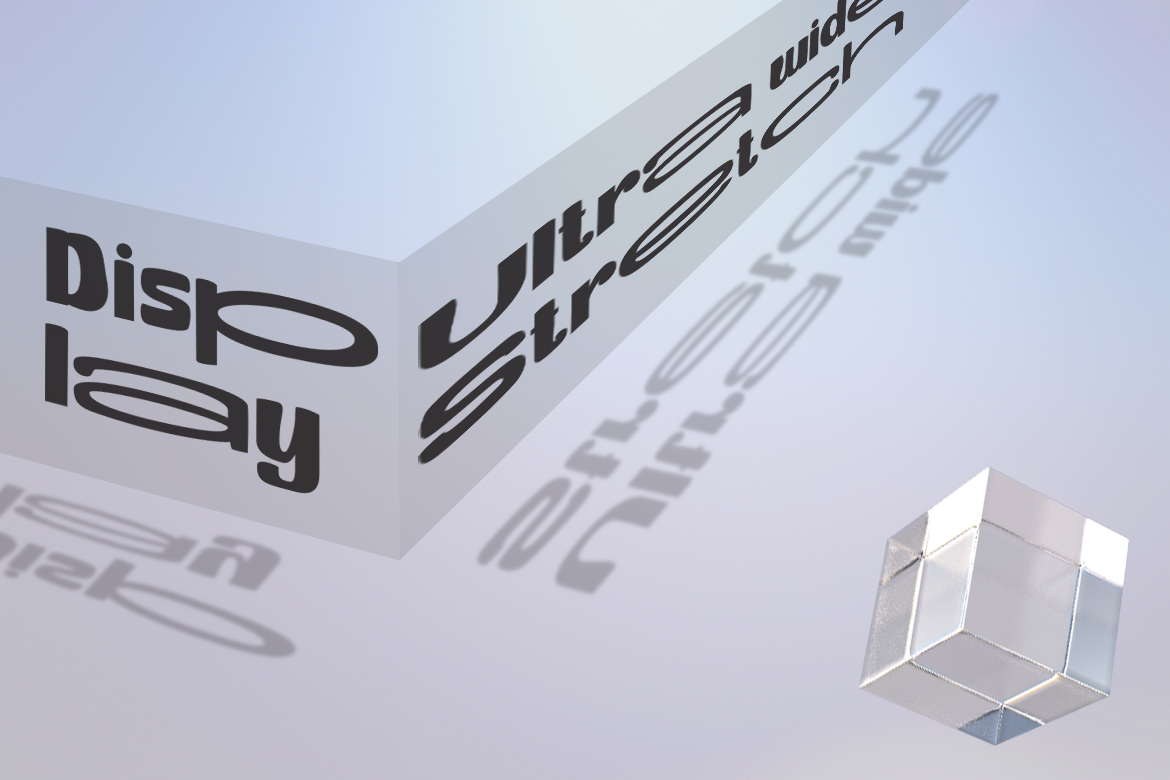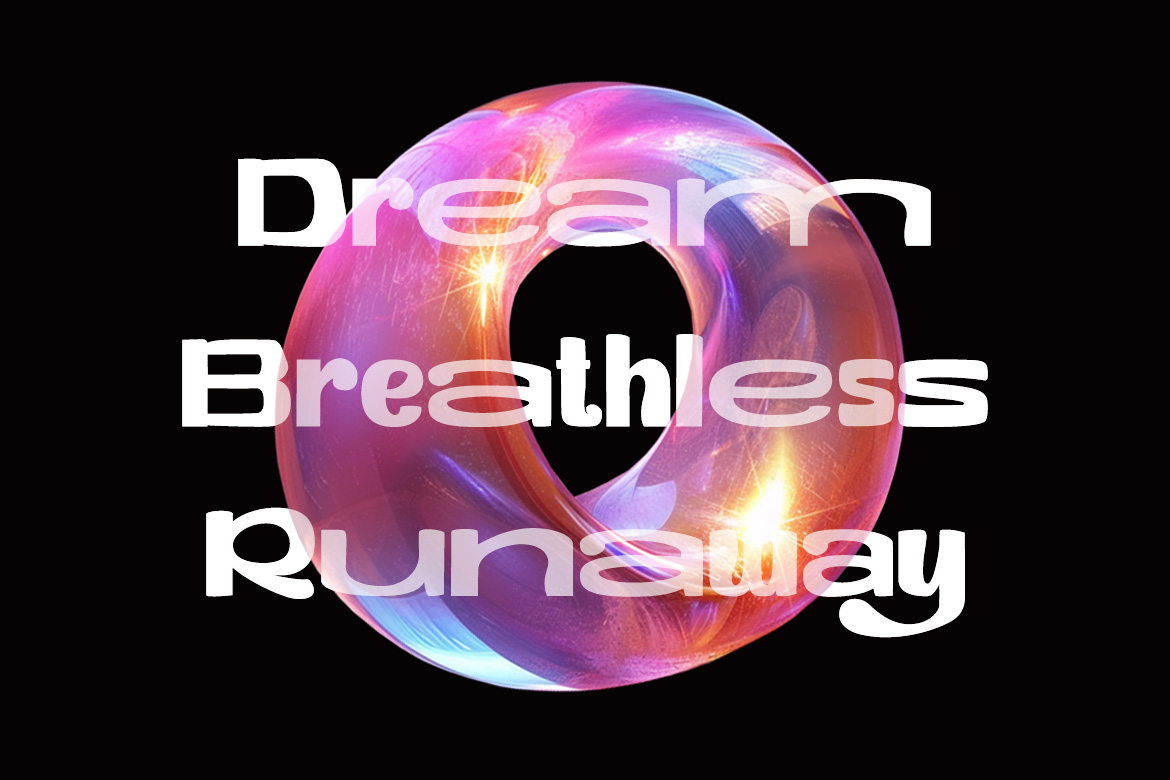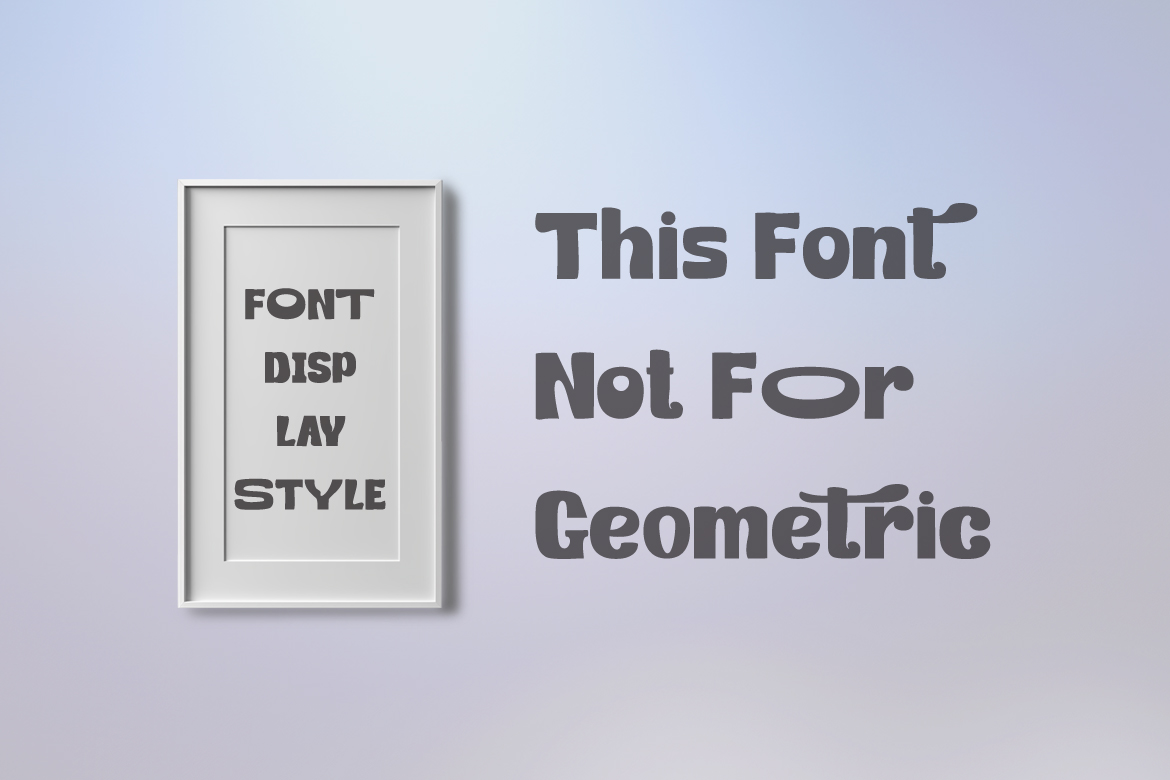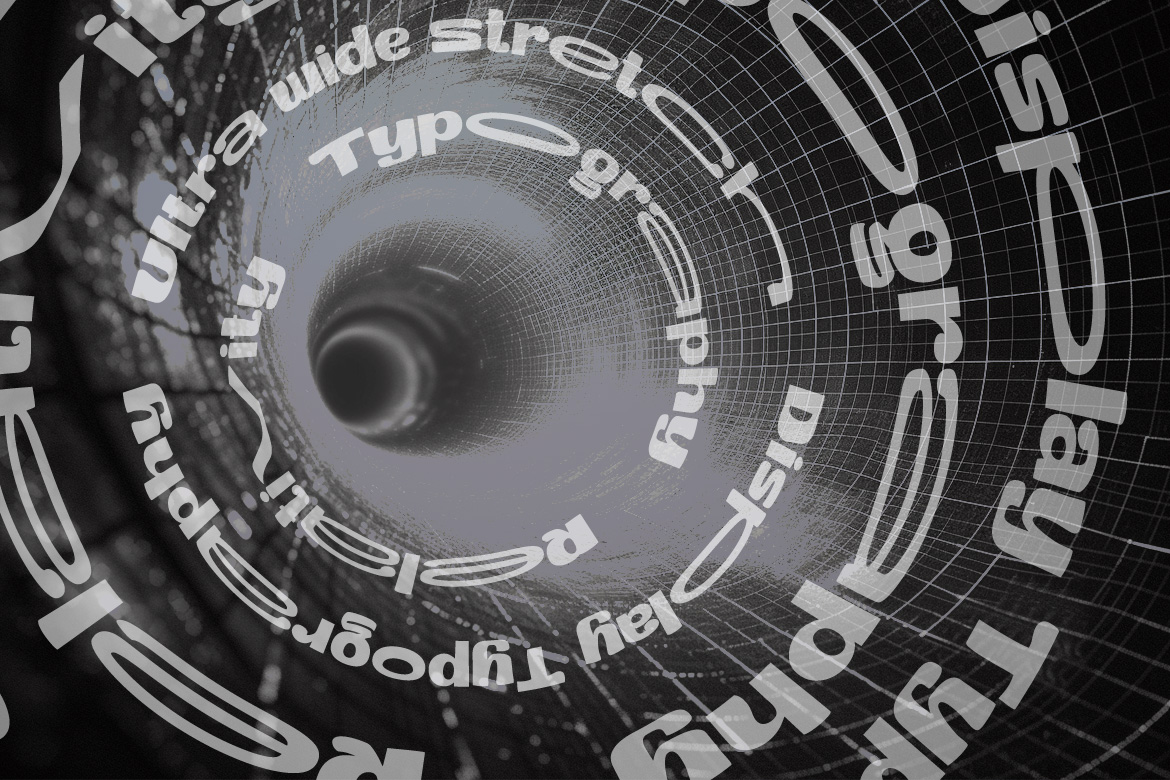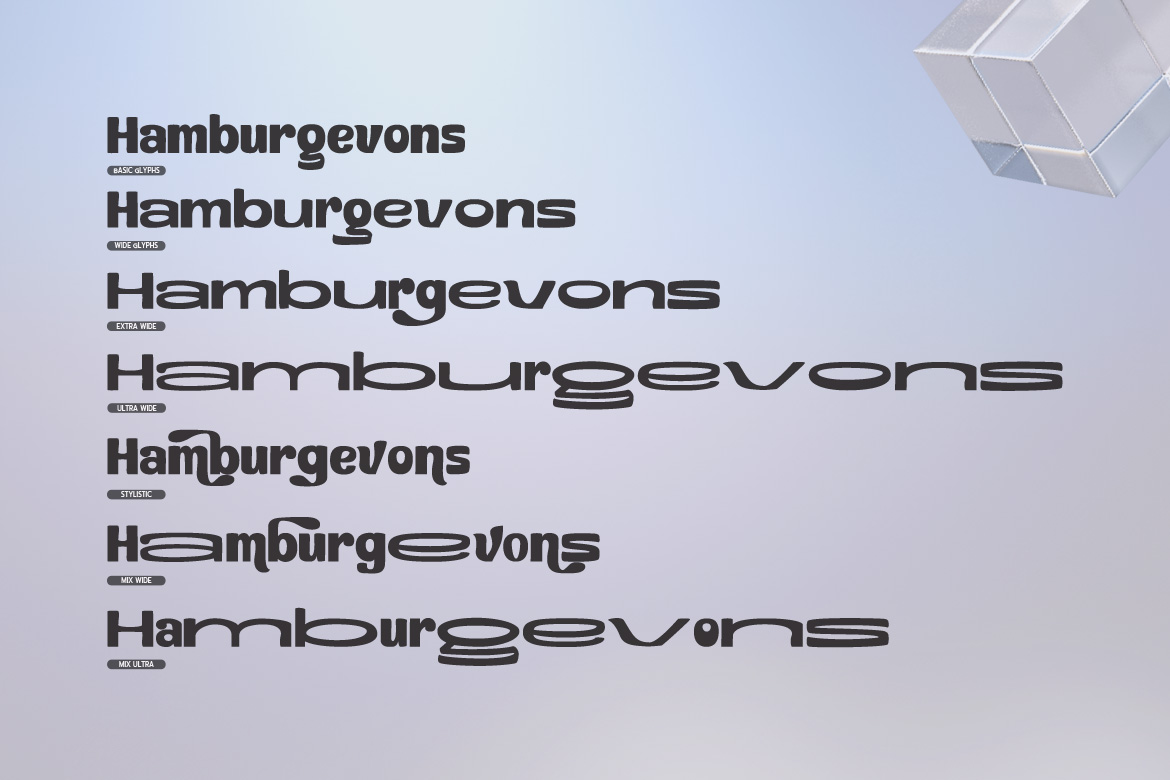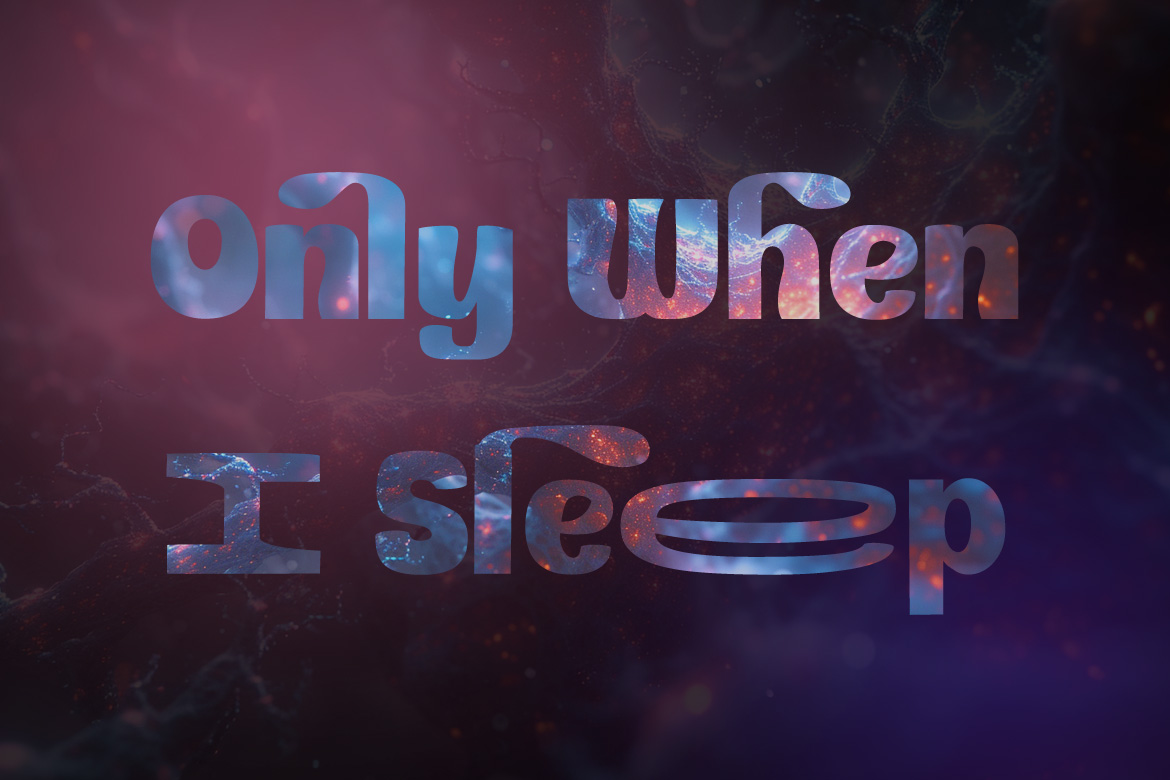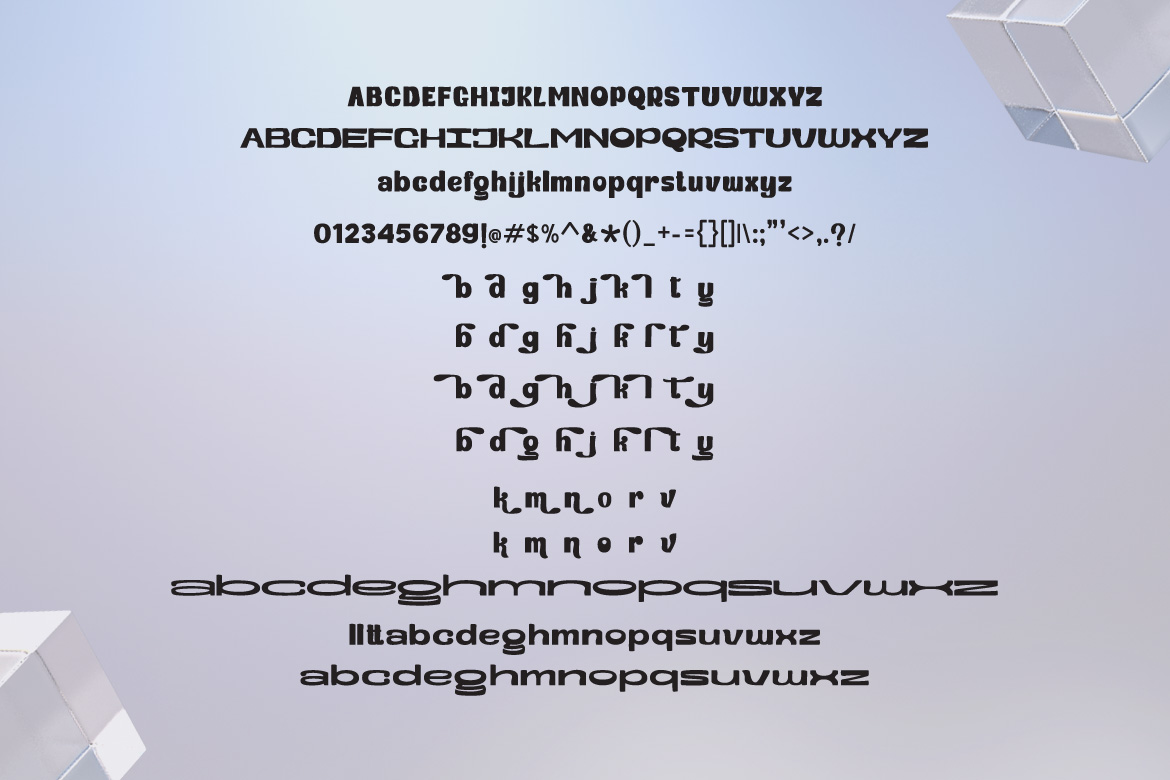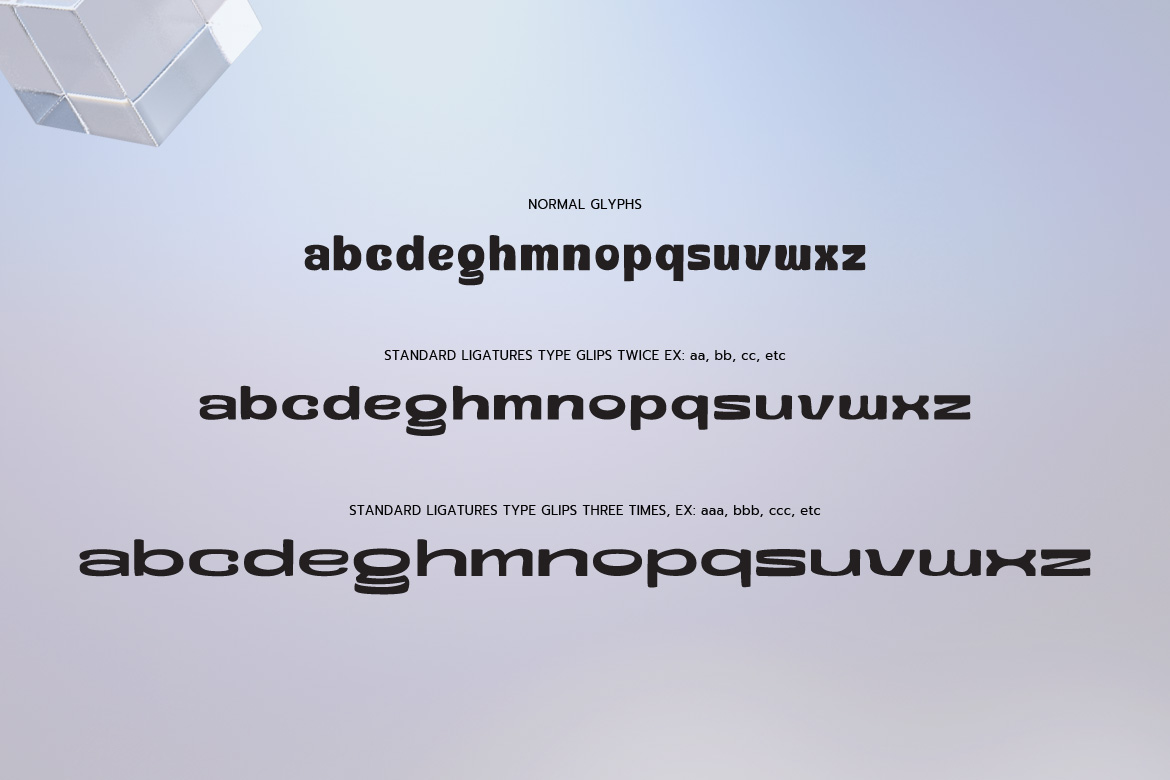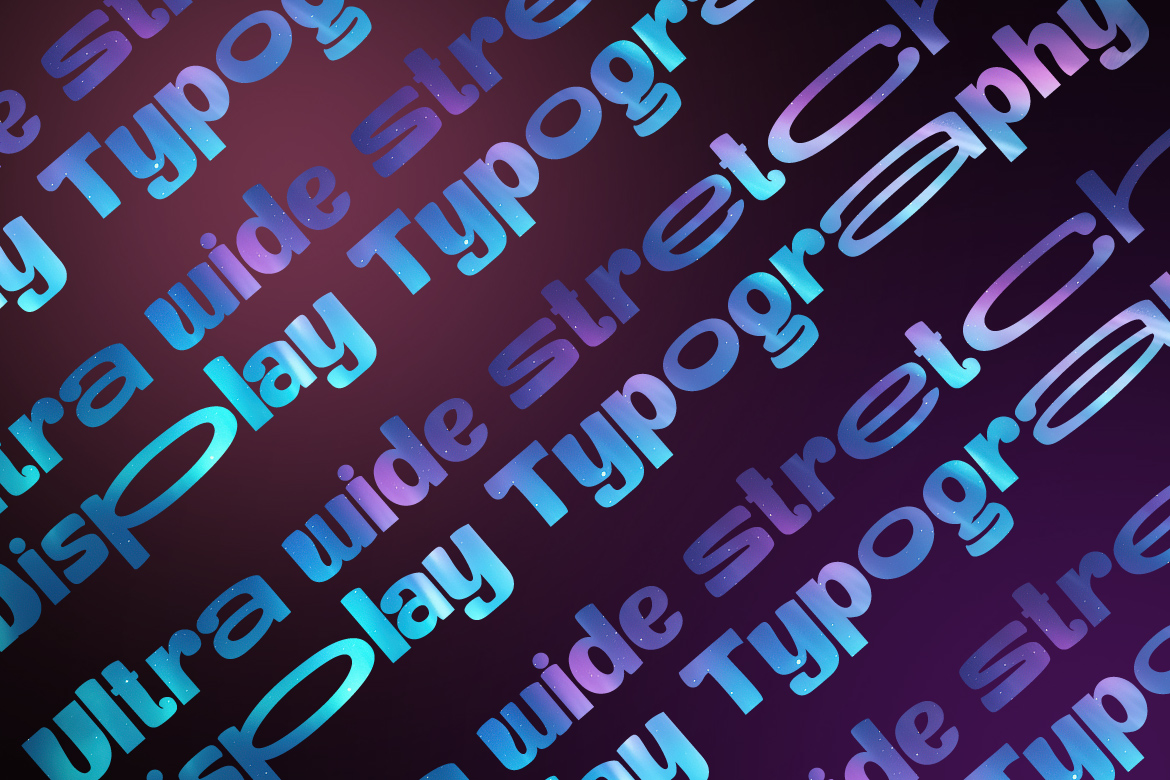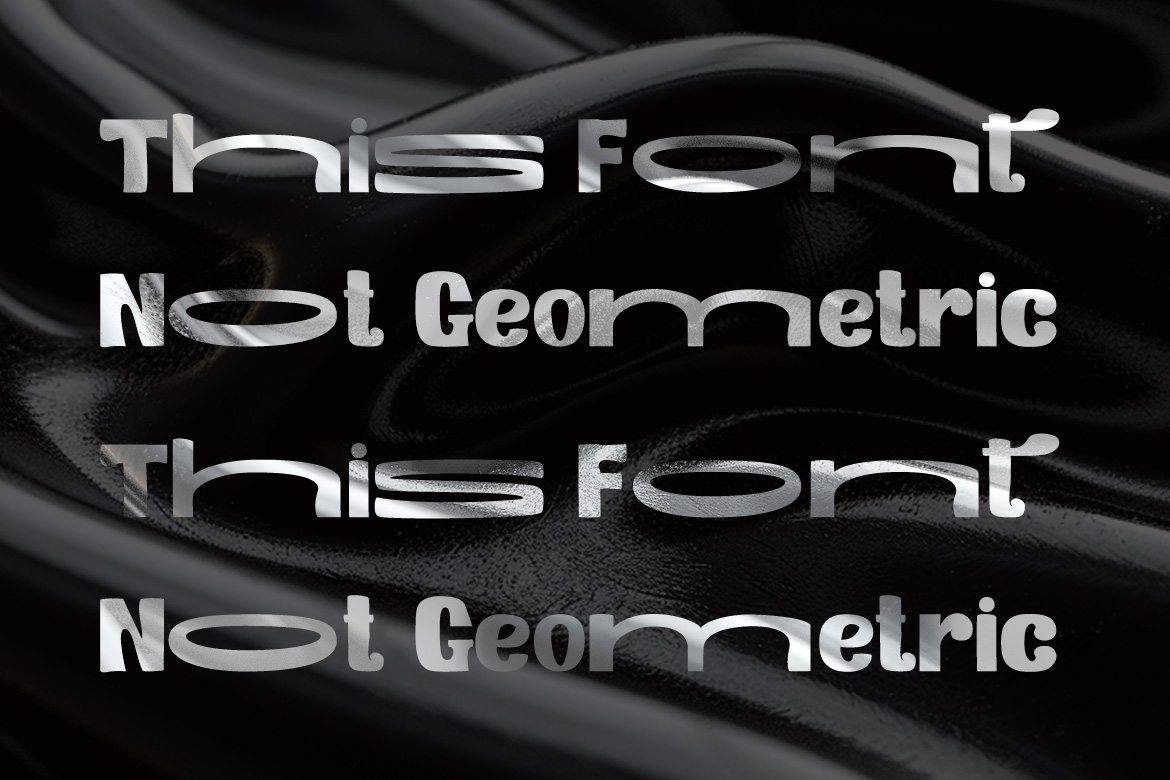
FH Gellatto – Display Font
FH Gellatto is a display font with a fun wide style, there are wide, extra wide, ultra wide and stylistic swashes on the OpenType feature included in the font.
– Unique style fonts